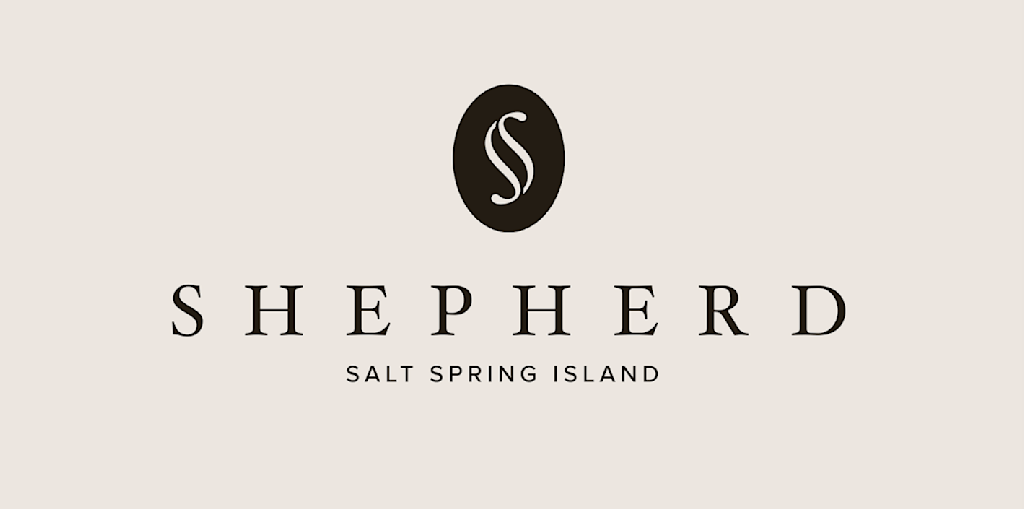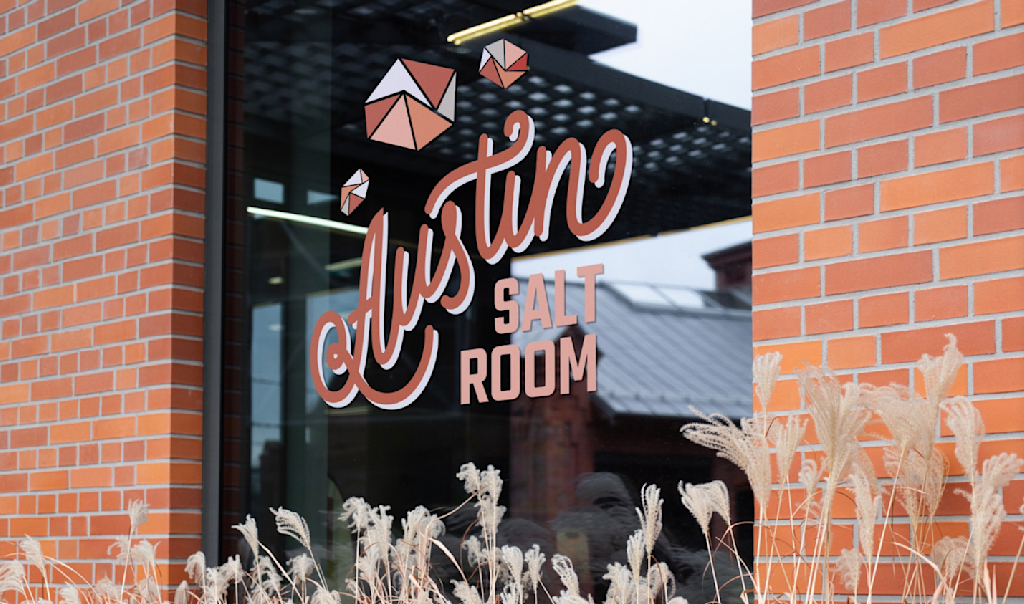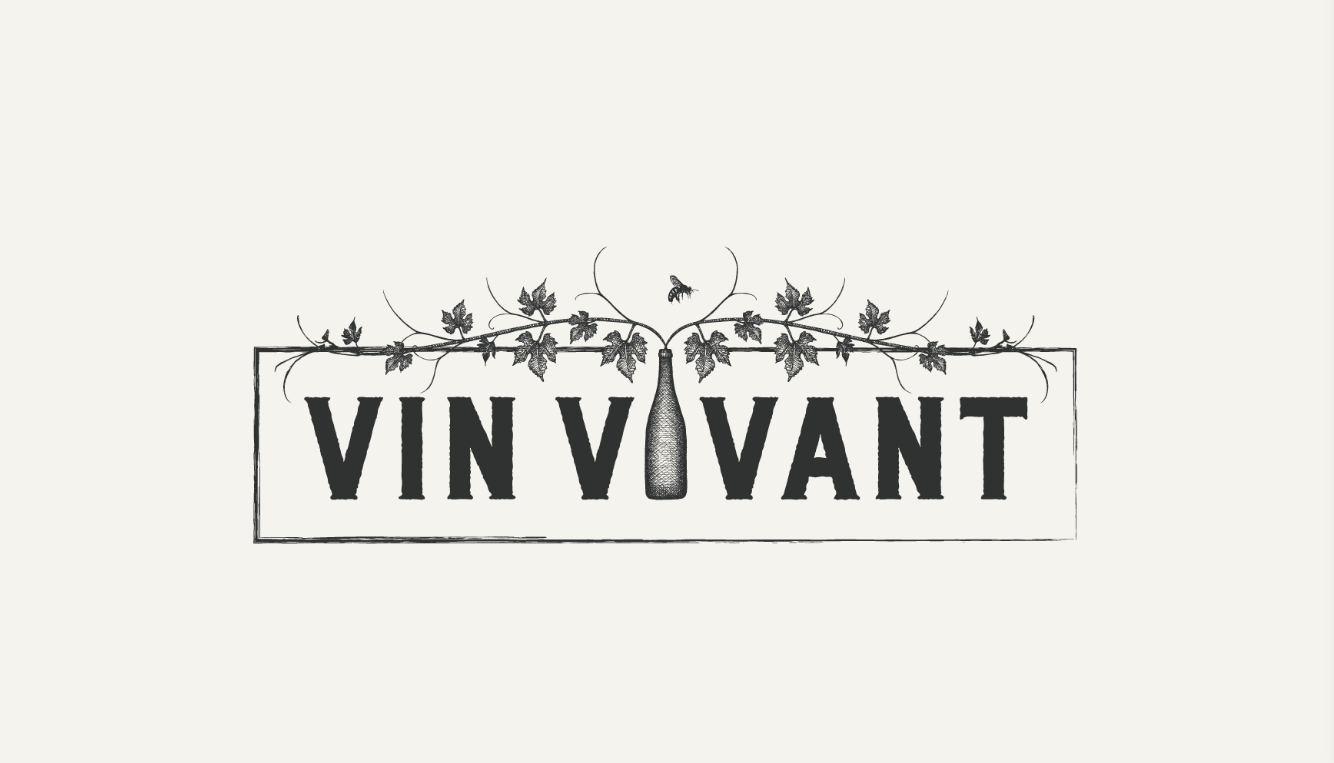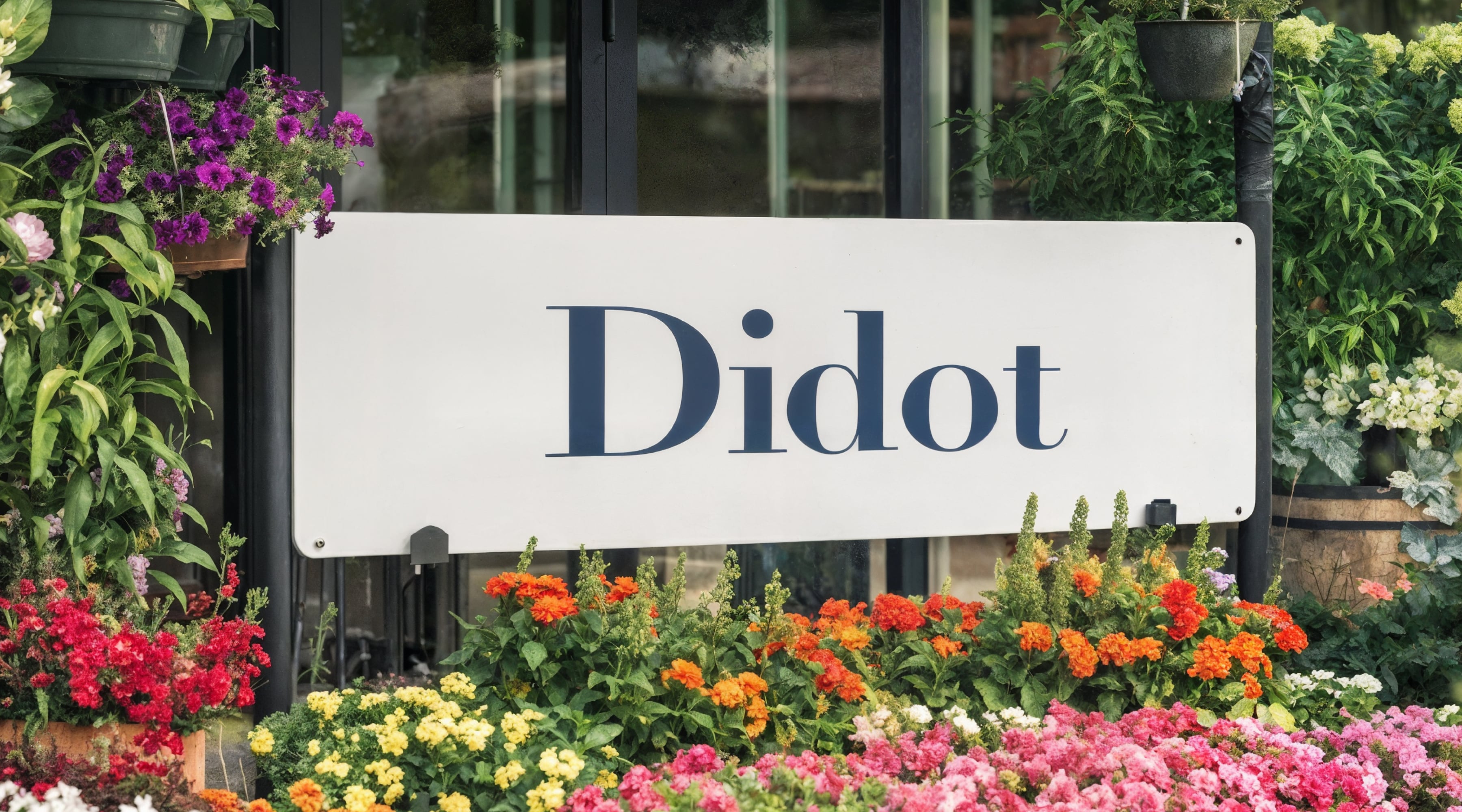
Ever wonder what the best fonts for signs are and why they’re important? A sign that combines a great message with a stylish font will literally make a name for your small business. Effective signs:
- distinguish your storefront
- generate curiosity and brand awareness
- reel in foot traffic
- make your booth the talk of the trade show.
Signs communicate practical information, so they must be clear and visually engaging. A well-chosen font is the easiest way to accomplish this, but choosing a font? That’s not so easy. There are thousands of options, each with subtle effects and appropriate contexts. And if that wasn’t challenging enough, your sign may need to balance multiple fonts at once.
Don’t fret!
We’ll walk you through the essential considerations for choosing a font for your sign and some sample fonts to start you off.
Best fonts for signs: everything you need to know
What makes the best font for signs?
Good signage fonts should be:
- legible
- eye-catching
- well balanced
- full of personality
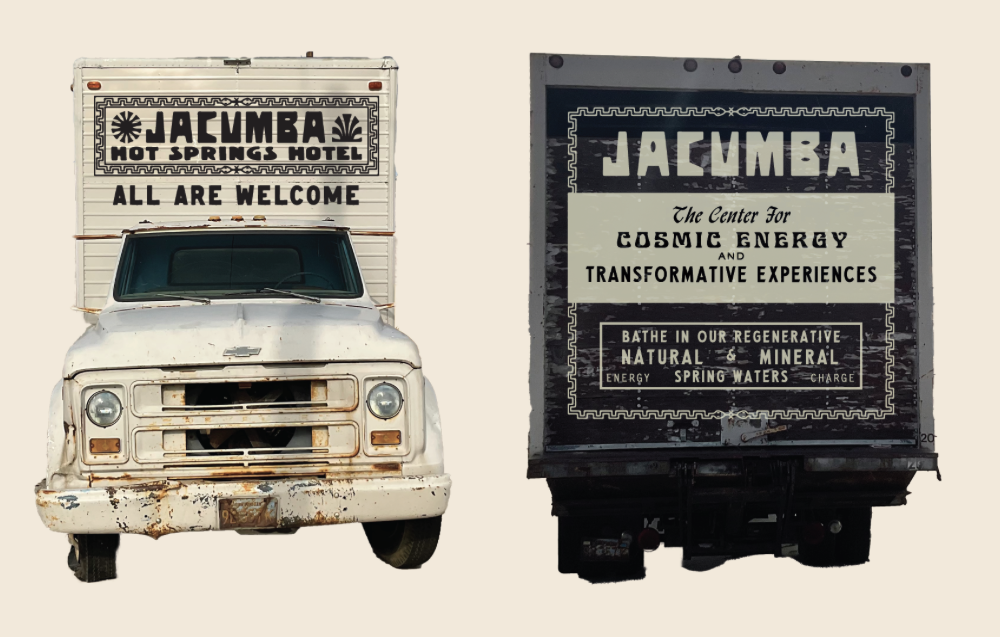
Before we discuss these in detail, we suggest reviewing the different types of fonts and basic typographic terminology to understand better how fonts craft reader impressions.
Prioritize readability
Readability is the most essential consideration when choosing fonts—so basic that it’s easy to overlook. The average passerby will likely be distracted, so the information should be effortless to scan. Not read. Scan.
Generally, simple letter shapes read most clearly, like many sans-serif fonts. In terms of weight, narrow or thin fonts are harder to read at a distance. Decorative elements, like serifs or elaborate cursive, also affect legibility to a certain degree. All of these may be acceptable trade-offs to achieve stylistic effects as long as the message remains reasonably clear.
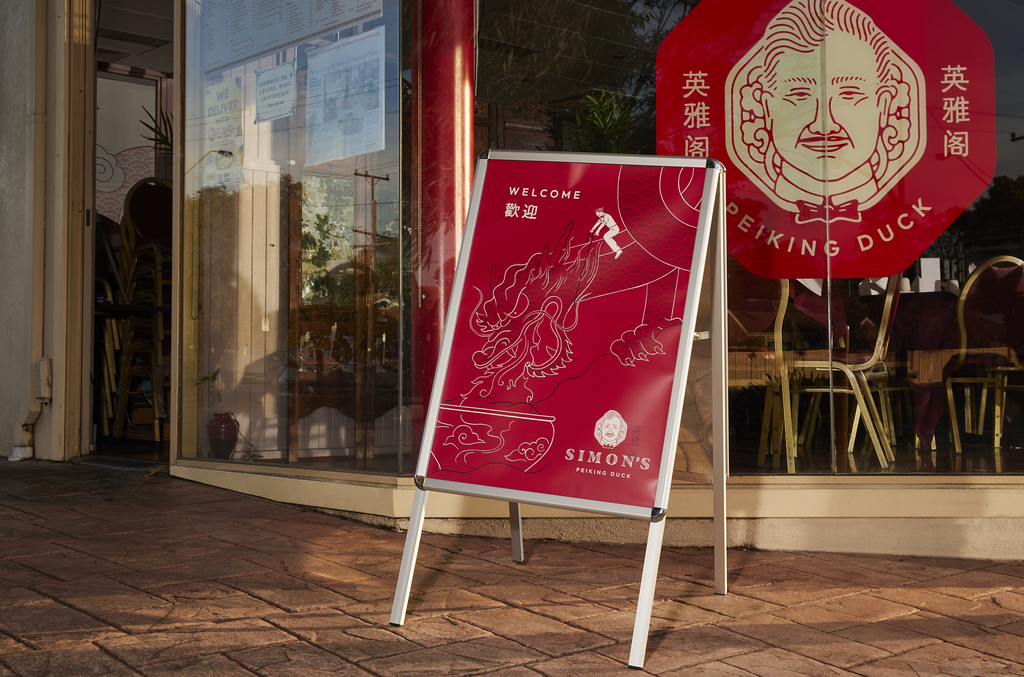
Keep things eye-catching
Signs are created to call attention to themselves, so a good sign font should draw the viewer’s eye. But that doesn’t mean that signage fonts should be full of decorative, overly designed gimmicks—there’s a fine line between eye-catching and absurd or even confusing.
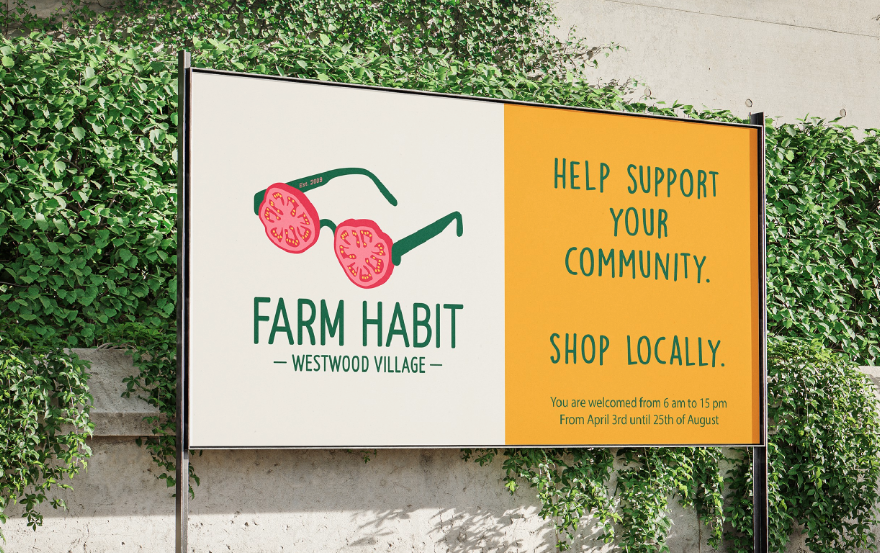
The simplest fonts command attention by virtue of their placement and scale. For example, a single word on a blank page draws the eye through the design principles of emphasis, contrast and white space. Display fonts specifically designed for large sizes and headline text are a safer bet. These tend to be bolder, chunkier fonts with room for special effects like drop shadows, outlines and textures.
Many fonts include a ‘Display’ variation within their font family. This makes even common fonts impactful for your business signs.
Let personality shine
Every font has a personality, expressed through font psychology.
- Serif fonts are some of the oldest, associated with letters chiseled in stone and with tradition.
- Sans-serif fonts are widely used across the internet, coming across as minimalist and sleek.
- Script fonts have a formal, fanciful appeal.
- Decorative fonts are novel and playful.
Beyond these broad generalizations, each specific typeface style will tug at subtly different emotions.
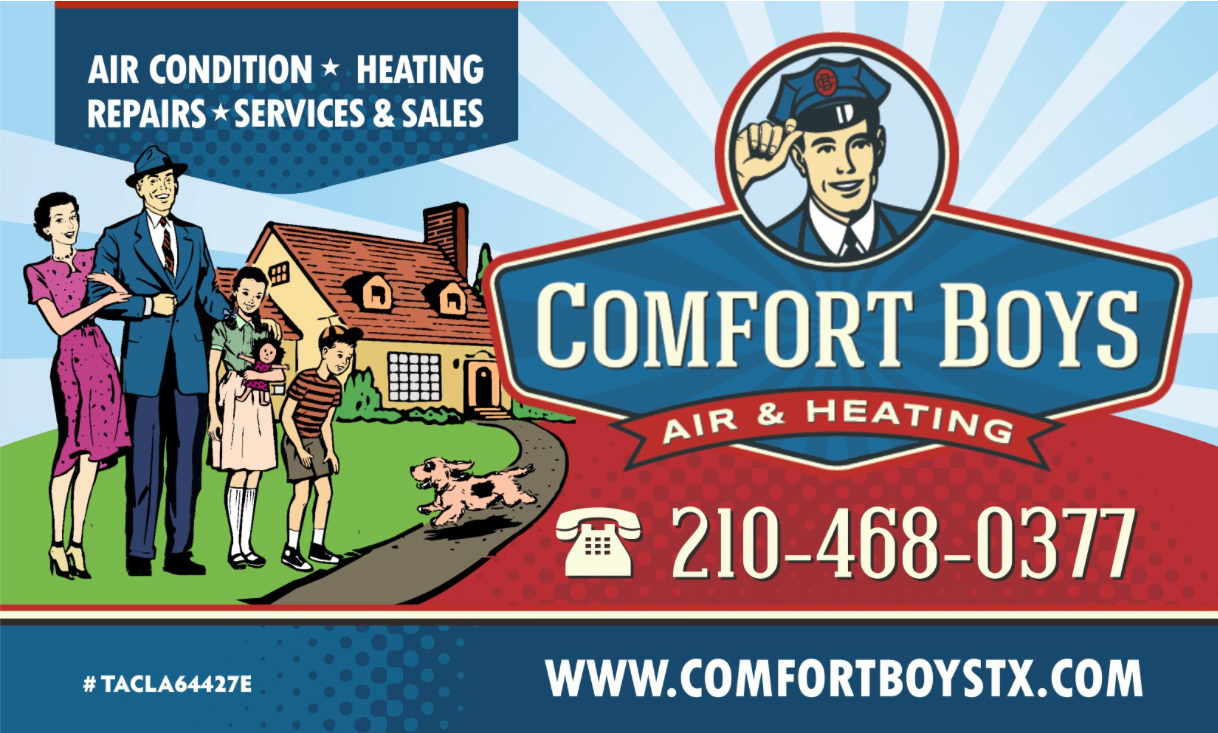
With all this in mind, choose a font for your sign whose associations match your brand personality. Ideally, this means you should give some thought to your official brand fonts if you haven’t already done so. In addition to your overall brand, the font style should match the tone of your sign’s message. If you’re trying to excite the reader about a sale, a bookish serif might not be right!
Strive for harmony and balance
Although a sign might contain a single word, signs often work with multiple phrases (like the main headline, a tagline, and supporting information like location, date or prices). As a result, you may need a few different fonts, though the fewer (around three), the better.
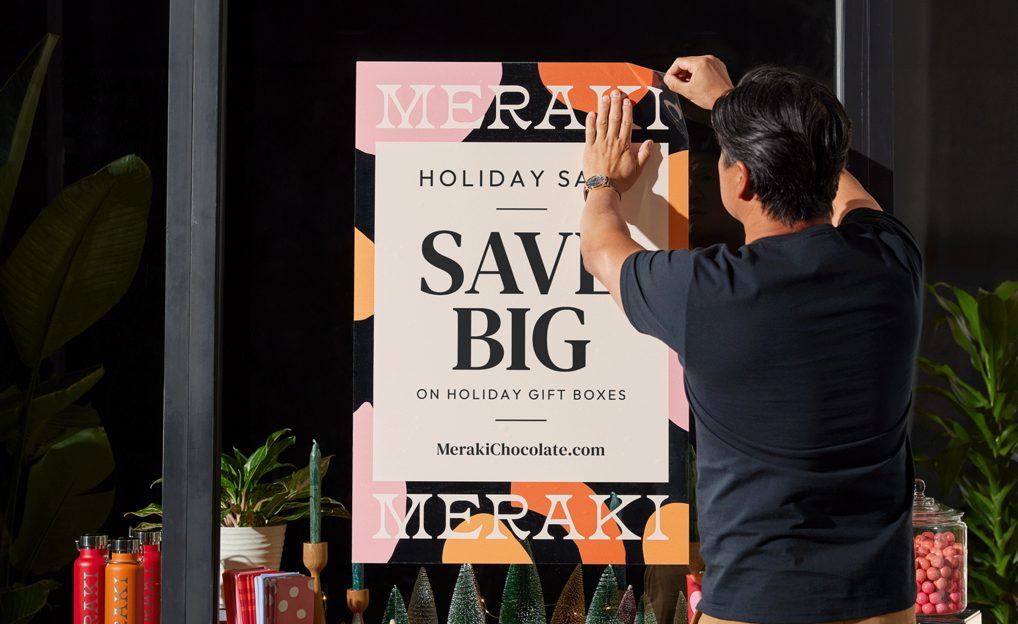
Source: via VistaPrint
Changing the fonts between phrases supports visual hierarchy, making the relative importance and role of each phrase clear at a glance. Common techniques for visual hierarchy include varying the scale, placement, color, movement, direction and overall shape.
Pairing fonts generally comes down to contrast. For example, sign designers often combine an angular sans serif headline with a fluid script subheadline, which creates a sense of interplay between the fonts. Alternatively, consider using the same font in different sizes and weights, creating contrast and harmony at the same time.
The best fonts for signs
Best professional fonts for signs
Signs that convey professionalism tend to be stylistically reserved, achieving formality through straight-to-business, frill-free fonts. At the same time, a good professional font for a sign should include subtle touches of personality to avoid coldness.
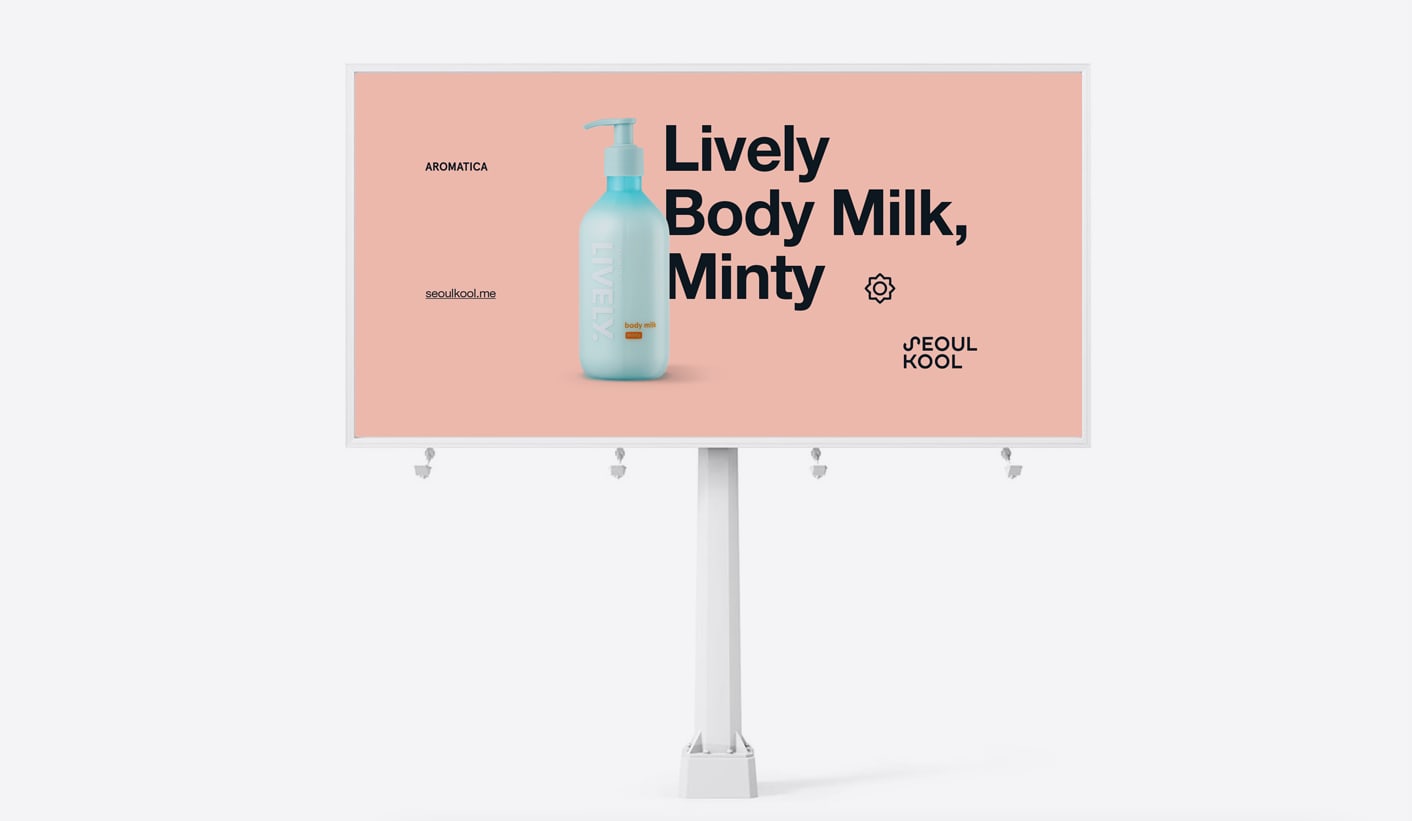
Find a font for your sign today
Given the important messages signs convey, well-chosen fonts are essential.
Fonts dictate how clearly a sign reads and how it feels, even in the absence of imagery and color. A great deal of intuition goes into choosing fonts, but an understanding of your brand, your sign’s purpose and tone, and the way fonts communicate beyond words will guide you.